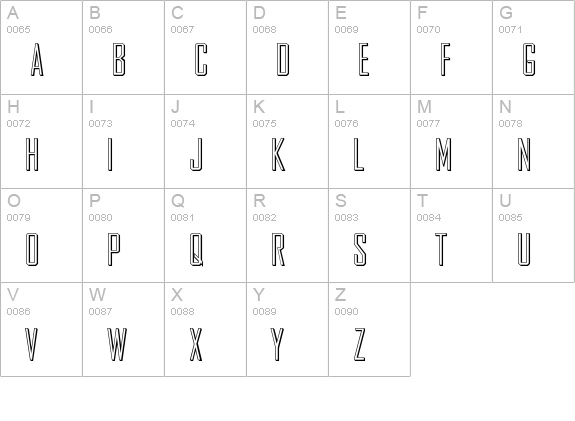
AgencyGothic Font Details
AgencyGothic is a modern and sleek font that exudes professionalism and sophistication. With its clean lines and sharp edges, this font is perfect for creating striking headlines, logos, and branding materials. The geometric shapes of AgencyGothic give it a contemporary look that is both elegant and powerful. The best part about AgencyGothic is that it is available for free! You can easily download this versatile font from FontsMarket.com and use it in your projects without any cost. Whether you're designing a website, a poster, or a business card, AgencyGothic will add a touch of refinement and style to your work. Don't miss out on this fantastic opportunity to elevate your designs with the timeless appeal of AgencyGothic – download it today and let your creativity shine!